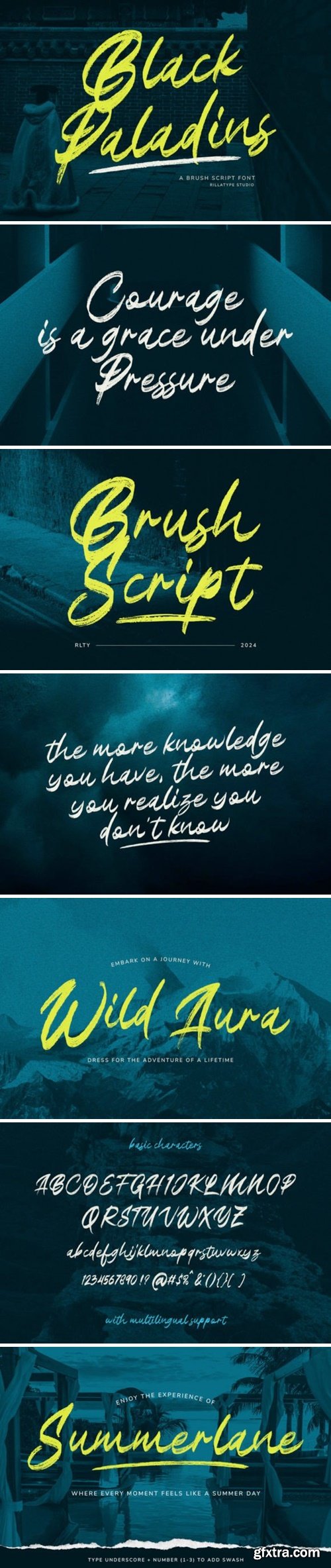
黑骑士字体
Immerse yourself in the dynamic blend of power and grace with Black Paladins, a brush script font that radiates an unequivocal charm. More than just a typeface, Black Paladins is a bold proclamation of style. With every confident stroke, it imparts a captivating allure to your design endeavors, striking a perfect balance between boldness and elegance.
Relish in the genuine, unfiltered aura of artisanal brush strokes, planting a seed of authenticity into your creations. Exemplary for a myriad of uses from distinctive branding to engaging social media posts, Black Paladins is engineered to make your words sing. Step into a universe where convention shakes hands with the modern, a place where each letter carries a unique tale. Raise the bar of your designs with the unique persona of Black Paladins- a font that transcends alphabets to spin narratives. Let your creativity soar as every twist and turn of this font becomes an accomplice in your artistic journey. Remember, Black Paladins isn’t just a font, it’s a catalyst for your creativity.